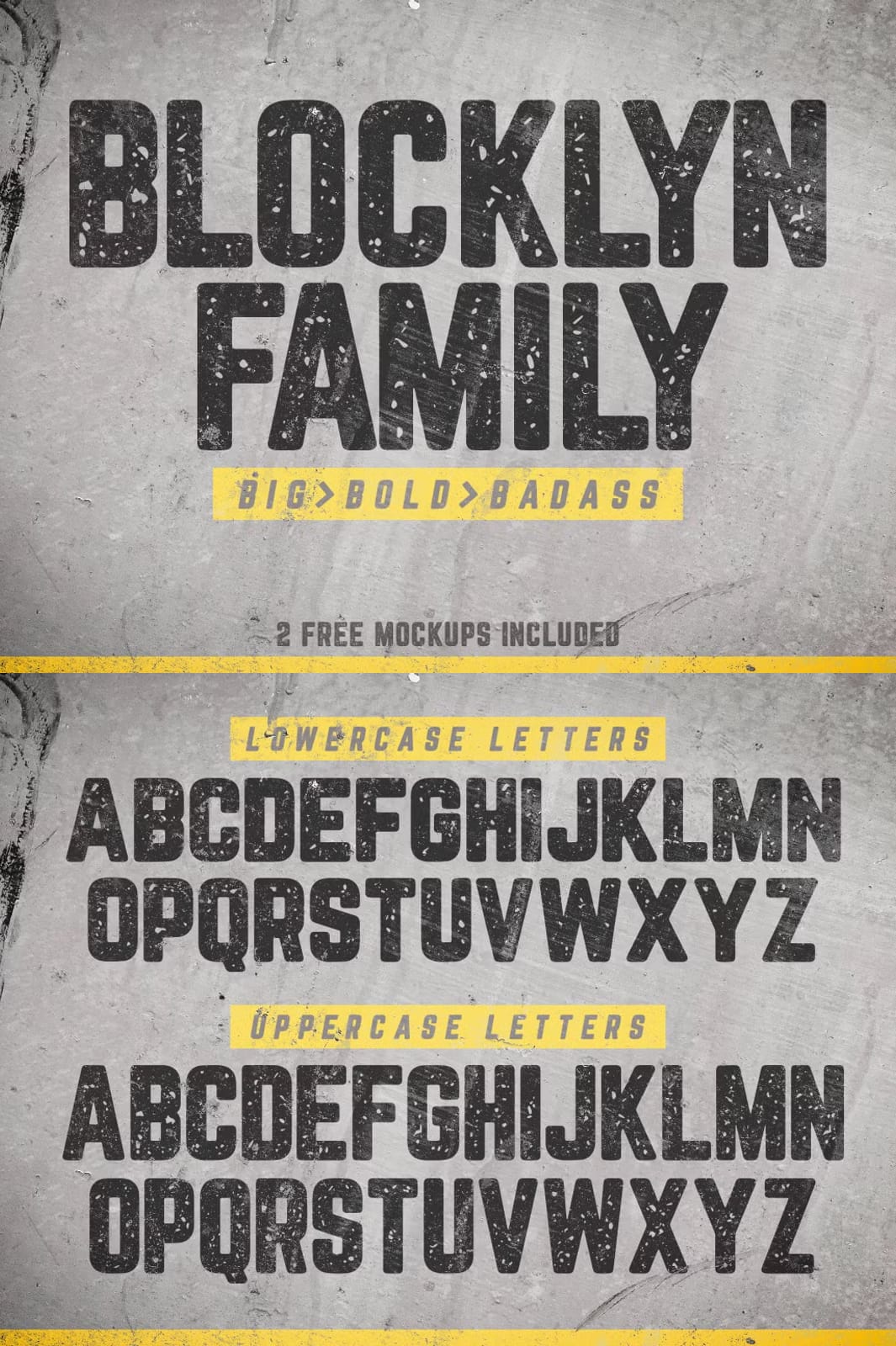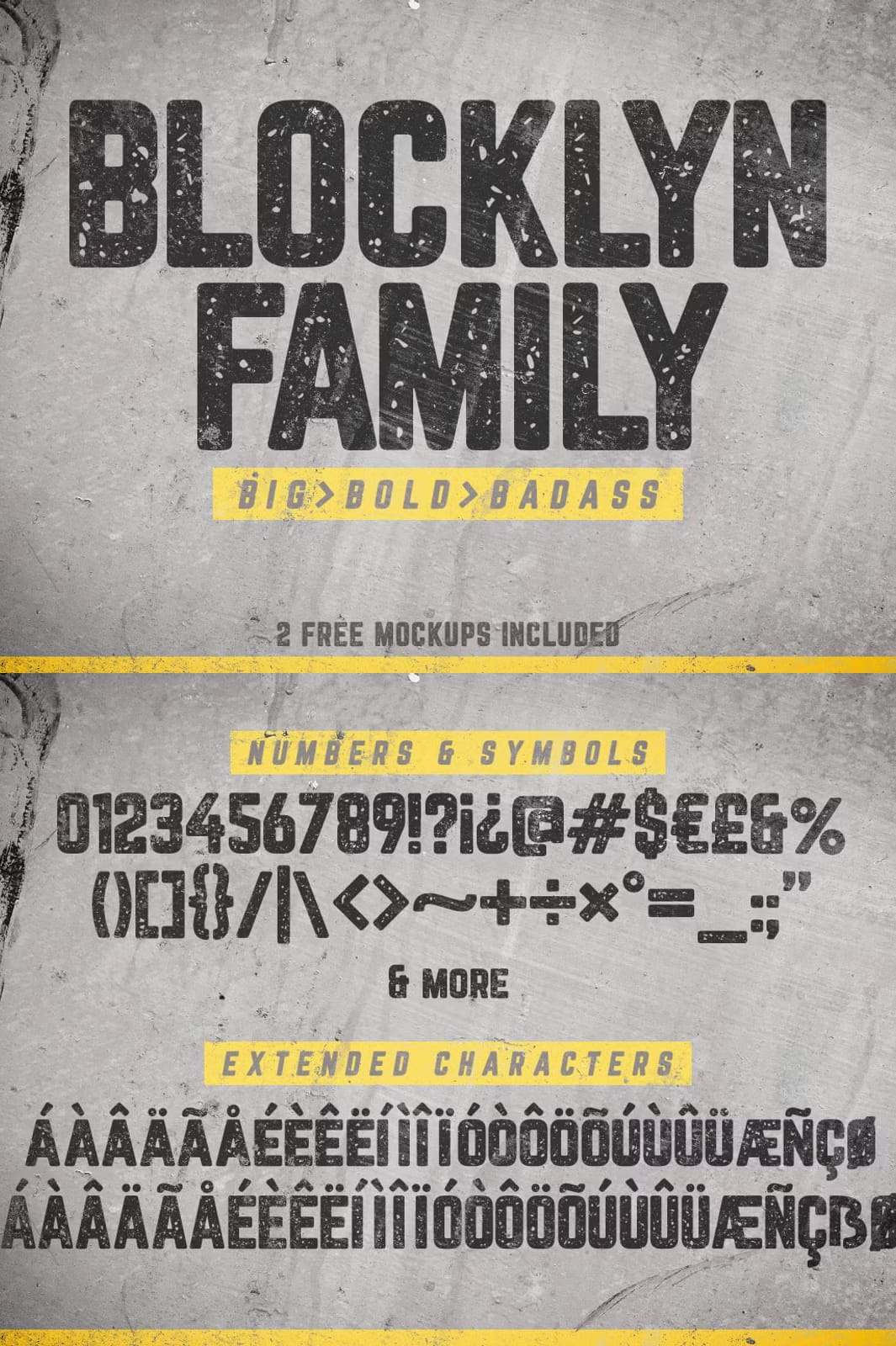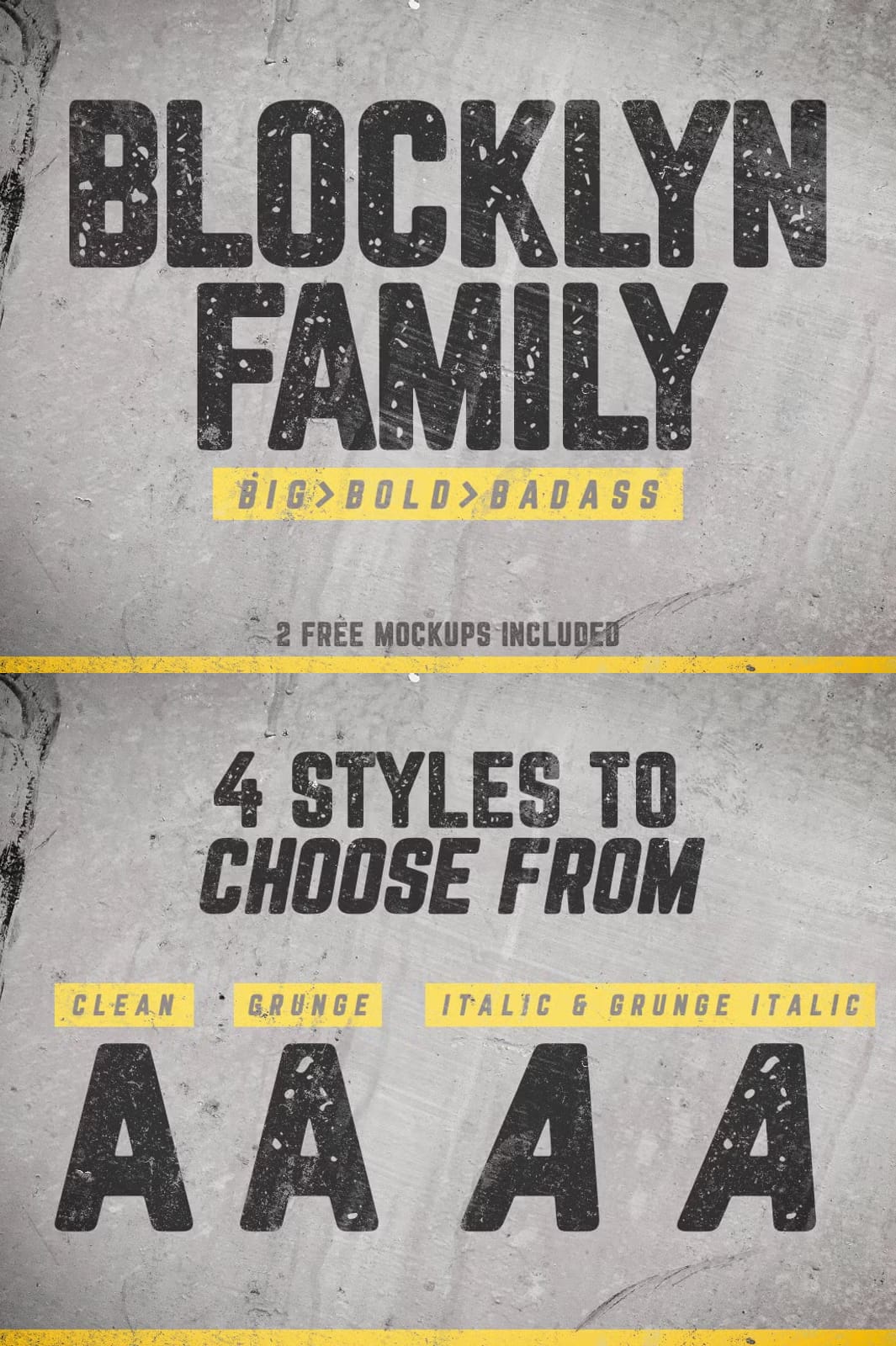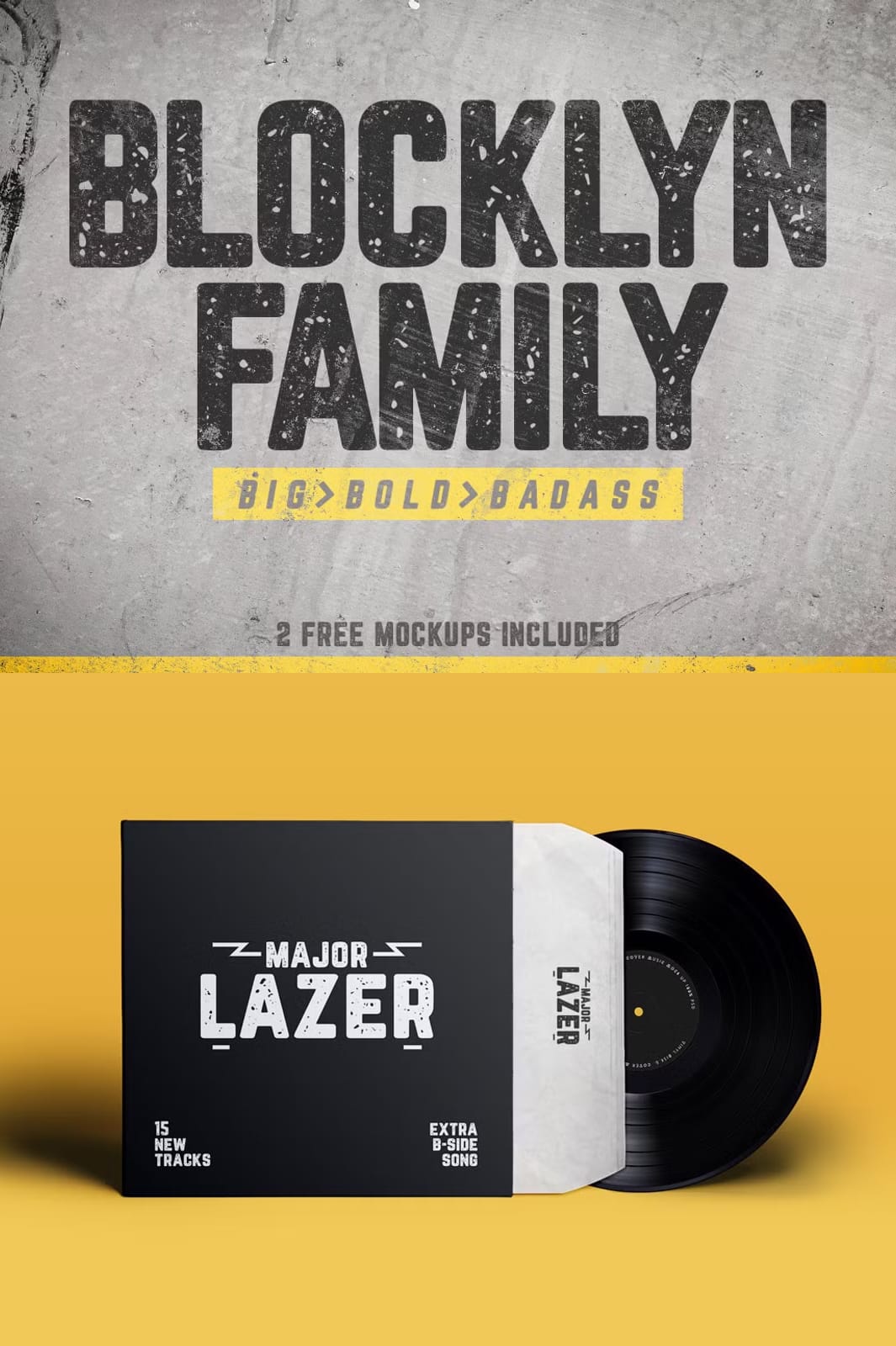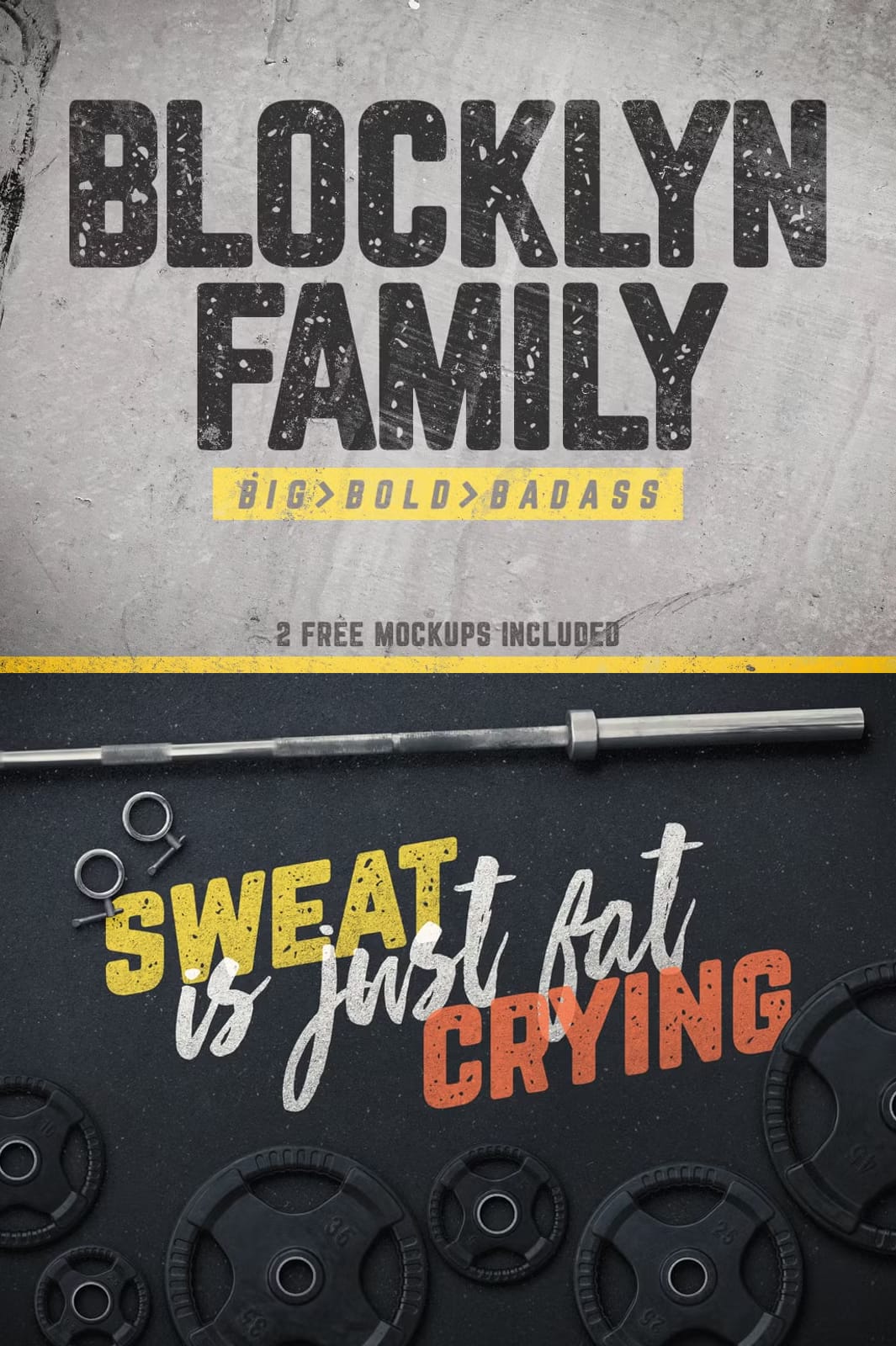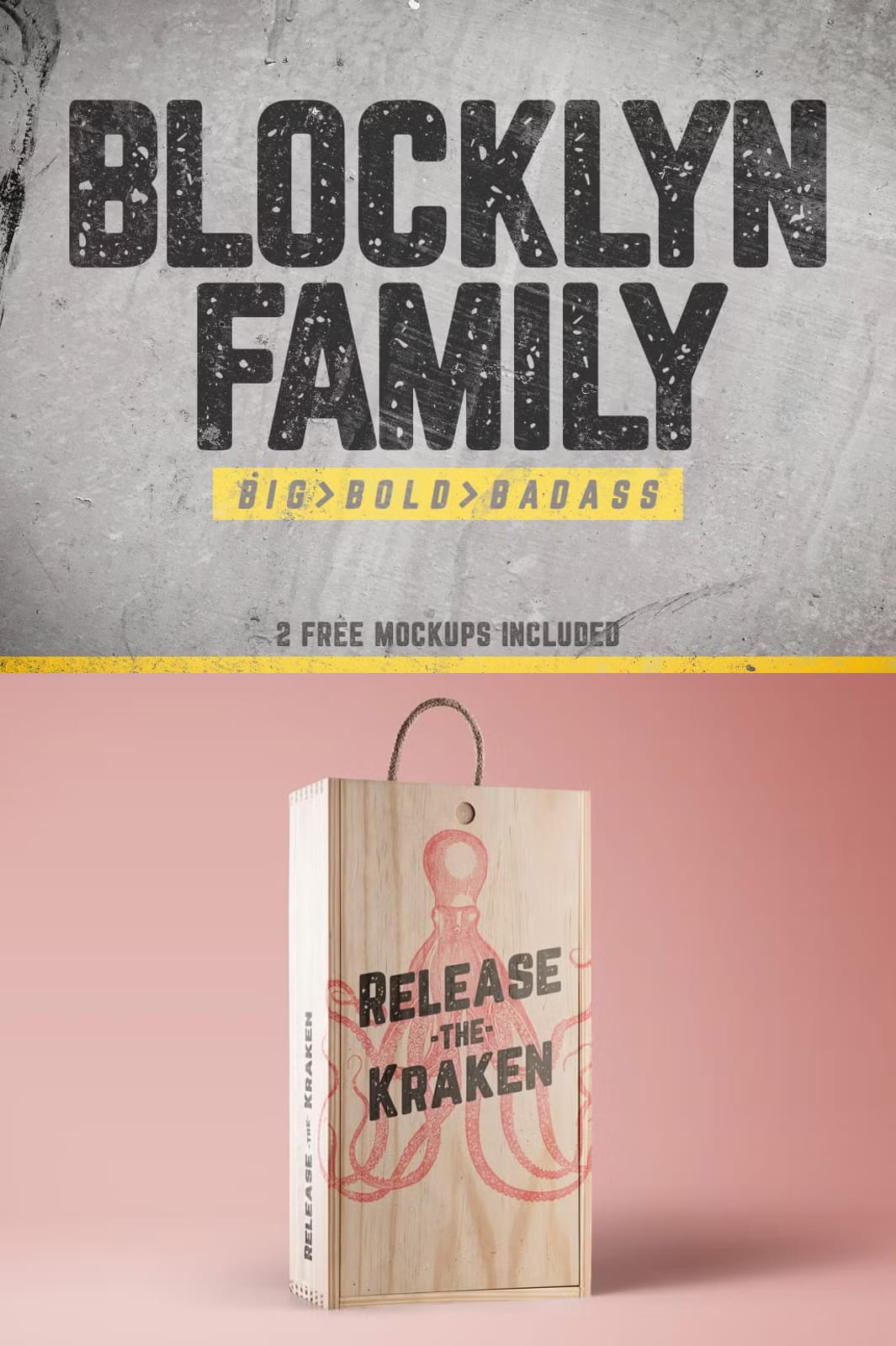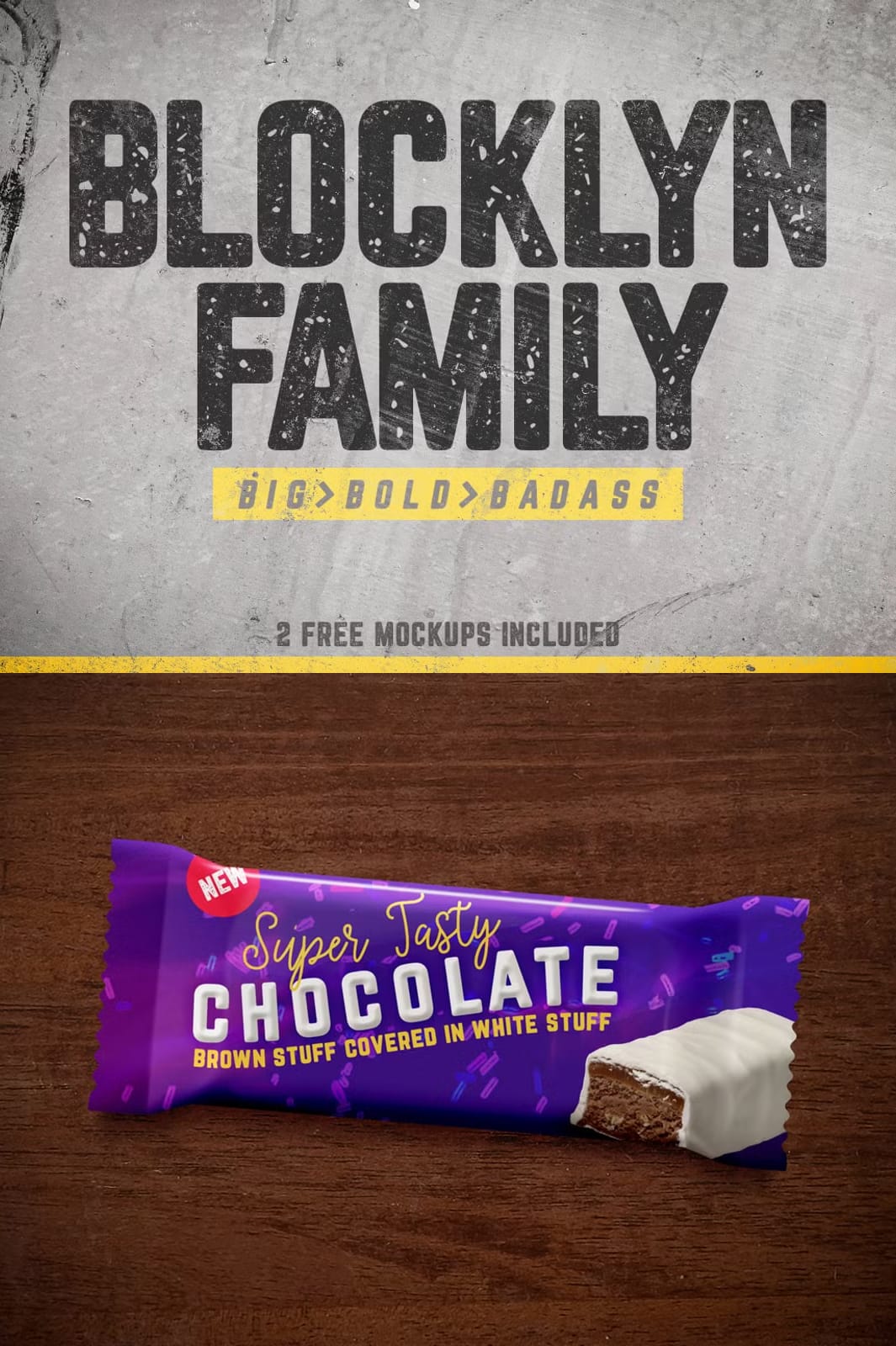
Blocklyn Font Family + Mockups
Explore the Distinctive Styles and Features of Blocklyn Font Family
Blocklyn Font Family stands out with its big, bold, and assertive character, designed to make a strong impression in any creative project. Contrary to being limited to masculine design styles, Blocklyn embraces versatility, making it suitable for a wide array of visual identities and branding needs.
This font family includes four unique styles: Condensed, Condensed Italic, Grunge, and Grunge Italic. These styles offer a broad range of expressive typographic options to cater to different design moods, from clean and tight forms in the condensed versions to raw, textured aesthetics in the grunge styles.
Comprehensive Font Features and Web Compatibility
Blocklyn comes equipped with standard and extended Latin characters, numbers, and symbols, ensuring comprehensive typographic support. Additionally, the inclusion of webfonts simplifies the process of implementing Blocklyn on websites, providing seamless consistency across digital and print media.
Why Choose Blocklyn Font Family for Your Design Projects?
• Diverse Styles: With four distinct fonts, Blocklyn offers both precision in condensed styles and creative freedom with grunge variants.
• Robust Character Set: Extensive character support including extended Latin set, numbers, and symbols for multi-language and complex typographic needs.
Applications of Blocklyn Font Family
Blocklyn is ideal for a variety of design applications such as bold headlines, impactful branding, poster designs, magazine layouts, and promotional campaigns where a strong visual statement is necessary.